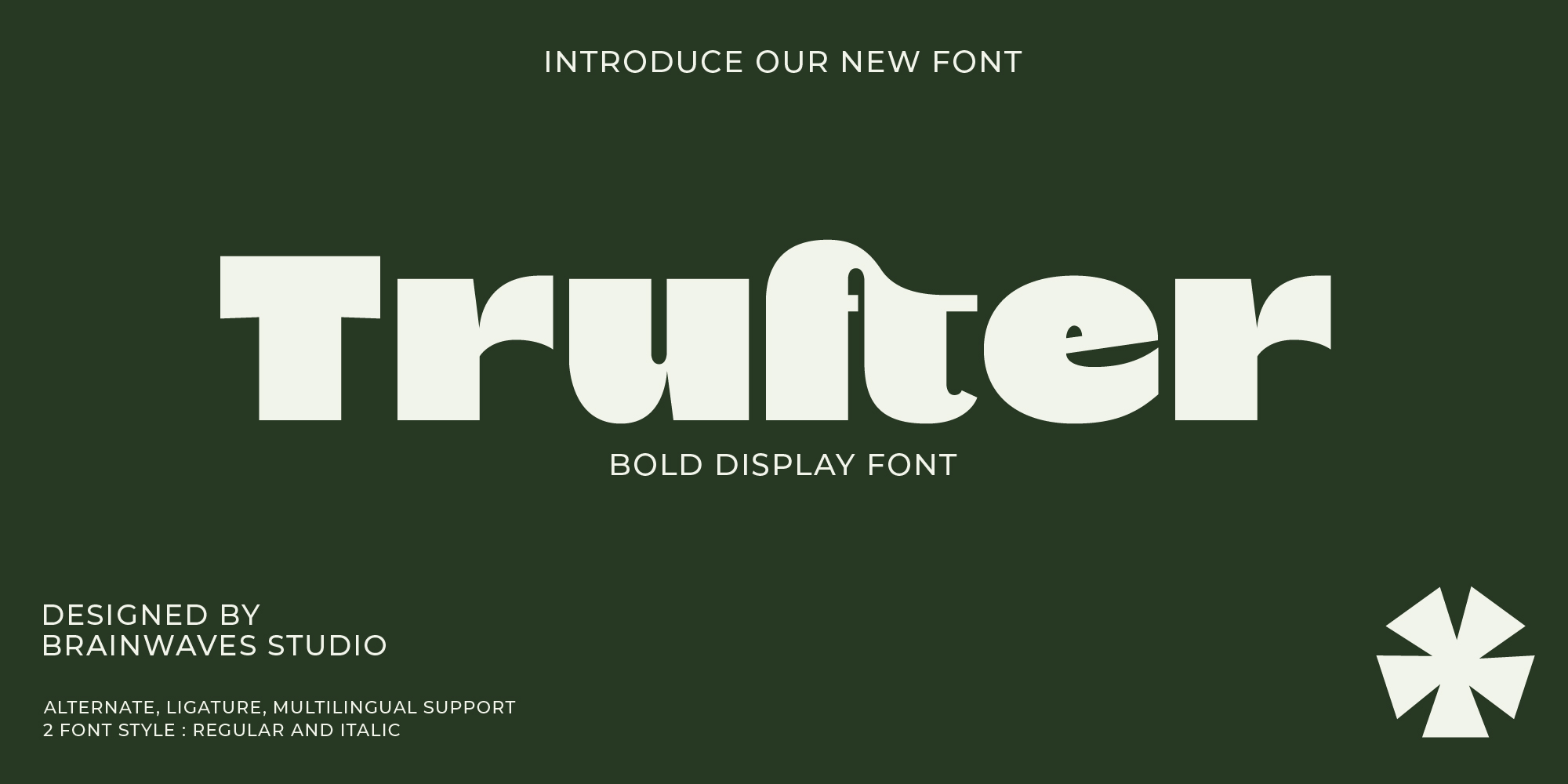
TRUFTER
Designed by Lucky Fitriadi, TRUFTER is a display sans font family. This typeface has two styles and was published by Brainwaves Studio.
Step back in time while staying ahead of the curve with Trufter, a bold retro-inspired display font designed to make your projects pop. Combining vintage aesthetics with a modern twist, Trufter is perfect for branding, posters, packaging, and more.
Whether you’re working on branding, editorial layouts, or creative campaigns, Trufter’s retro charm adds warmth and personality to every project. Ideal for anyone seeking a bold, nostalgic touch in their design.
Trufter is your ticket to turning ordinary projects into extraordinary statements. Revive the beauty of retro with Trufter and bring your ideas to life!